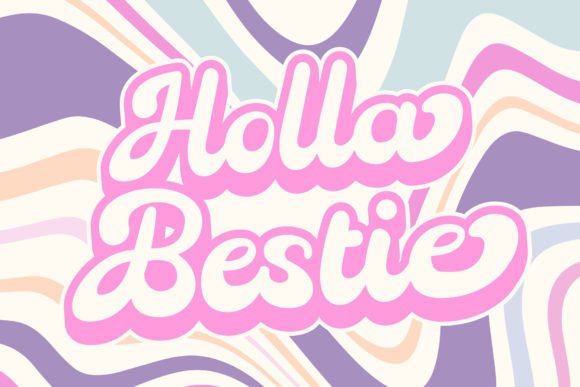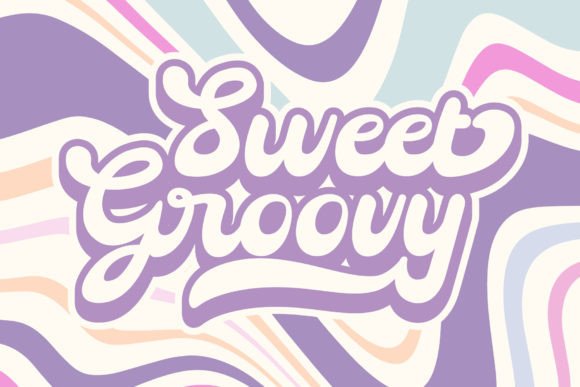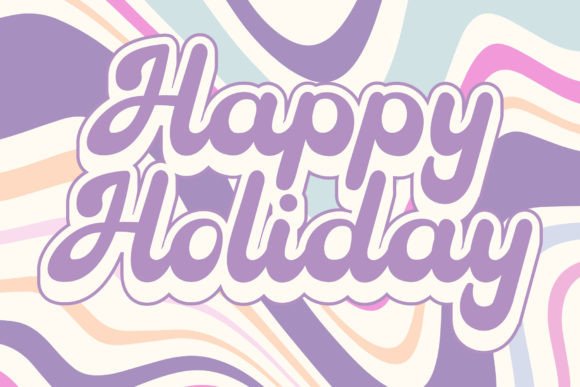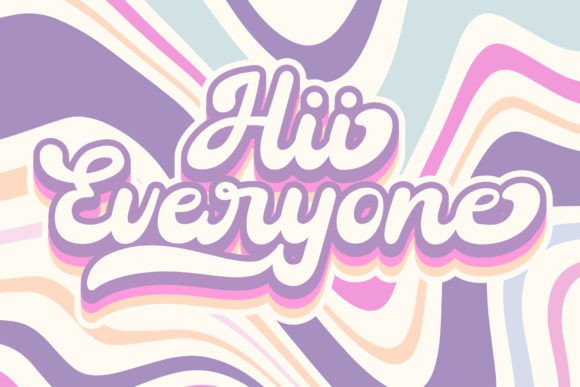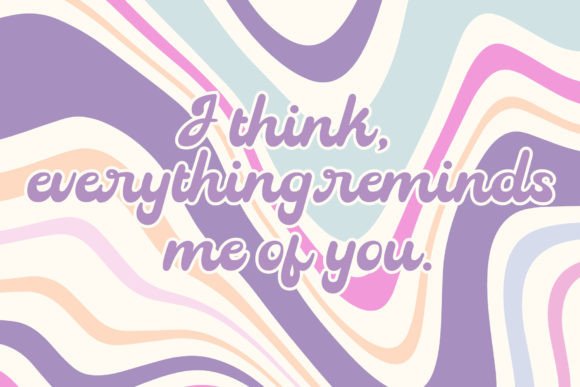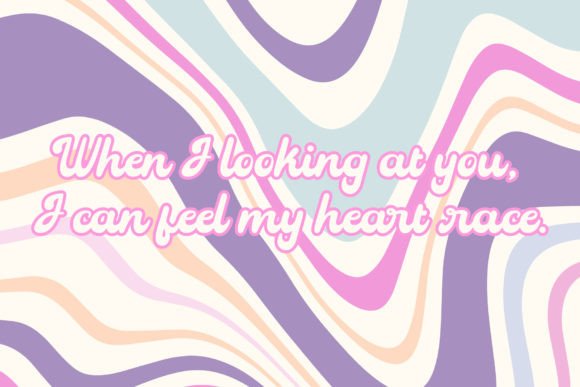
The Ultimate Retro Revival: Introducing the Baby Groovy Font
Have you ever been working on a design project, and suddenly, a spark of inspiration hits you? You see a vintage photograph, hear a classic tune, or stumble upon an old movie, and it transports you to a bygone era. That’s exactly what happened to us when we discovered the Baby Groovy Font.
This cool, vintage-style display font is a treasure trove of retro charm, waiting to be unleashed on your next design project. Whether you’re creating logos, branding materials, invitations, or social media posts, the Baby Groovy Font is the perfect addition to give your design that special something. With its PUA encoding, accessing all glyphs and swashes is a breeze, making it a valuable asset for designers looking to add a touch of nostalgia to their work.
Baby Groovy Font Key Features
- Font Family: Baby Groovy Font is a unique, hand-drawn font designed for playful and whimsical purposes.
- Font Size: Baby Groovy Font comes in 6 font sizes, ranging from 12pt to 72pt, to cater to diverse design needs.
- Resolution: The font is designed to be scalable, allowing for crisp and clear display at various resolutions, including 72 dpi, 96 dpi, and 144 dpi.
- Unique Characteristics: The font features a distinctive, cursive style with rounded edges, making it perfect for creating a fun and youthful atmosphere in designs.
Baby Groovy Font Review
When I first saw the Baby Groovy Font, I thought it was going to be a real winner. And, for the most part, it is. ✨ The font’s playful and whimsical vibe is perfect for anything kid-related, from nursery decor to children’s books. The font’s rounded edges and smooth curves give it a soft, friendly feel that’s sure to put a smile on your face.
- The font’s versatility is one of its strongest points. It can be used for a wide range of applications, from digital to print.
- The font’s character set is well-designed and includes a wide range of characters, including numerals and punctuation marks.
However, there are a few limitations that prevent the Baby Groovy Font from being truly exceptional. ⚠️ For one thing, the font’s design can feel a bit too “cute” for some applications. If you’re looking for a font that’s going to convey a sense of sophistication or elegance, this may not be the best choice. Additionally, the font’s weight and spacing can be a bit inconsistent at times, which can make it difficult to use in certain situations.
Overall, I would give the Baby Groovy Font 3.5 out of 5 stars. It’s a fun, playful font that’s perfect for kid-related projects, but it may not be the best choice for more formal or sophisticated applications.
The Baby Groovy Font is perfect for:
- Designing nursery decor and baby-themed products.
- Creating playful and fun marketing materials.
- Adding a touch of whimsy to your branding and packaging.
To get the most out of the Baby Groovy Font, try:
- Use the “Baby Groovy Font” to create a custom phrase or name for the baby.
- Combine the font with colorful, swirling patterns and shapes reminiscent of the 1960s and 1970s.
- Use a mix of bright, pastel colors to add a playful and whimsical touch.
- Consider adding some 3D elements, such as foam letters or shapes, to give the design extra depth.
- Use the “Baby Groovy Font” to write captions and quotes throughout the book.
- Combine the font with hand-drawn illustrations of baby animals, flowers, and other whimsical elements.
- Use a mix of watercolor and digital art to create a soft, dreamy effect.
- Consider adding some interactive elements, such as flaps and pull-outs, to make the book more engaging.
3 Creative Project Ideas Using “Baby Groovy Font”
Project 1: Retro-Themed Nursery Wall Art
Create a unique and eye-catching wall art for a nursery using the “Baby Groovy Font”.
Project 2: Hand-Drawn Baby Book
Create a heartfelt and personalized baby book using the “Baby Groovy Font” and hand-drawn illustrations.
Project 3: Custom Baby Shower Invitations
Create custom and adorable baby shower invitations using the “Baby Groovy Font” and colorful graphics.